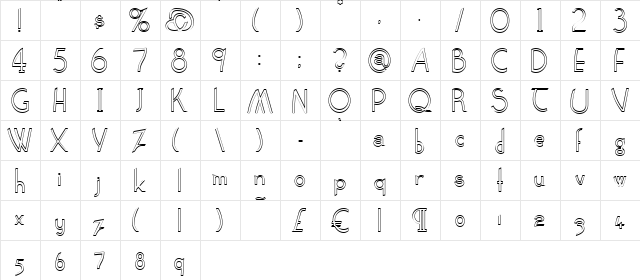
Claritty_Outline Normal Font Preview
Claritty_Outline Normal
Design Context for Claritty_Outline Typeface
Claritty_Outline is built around its visual character rather than neutral utility — its distinctive forms are designed to make an impression at display sizes.
Font Pairing: Pair with a clean neutral sans-serif for body copy to let Claritty_Outline's character lead without overwhelming the composition.
Pro Tip: Use Claritty_Outline exclusively at display sizes — it was designed to be seen, not read at length. Let a neutral companion handle body copy.